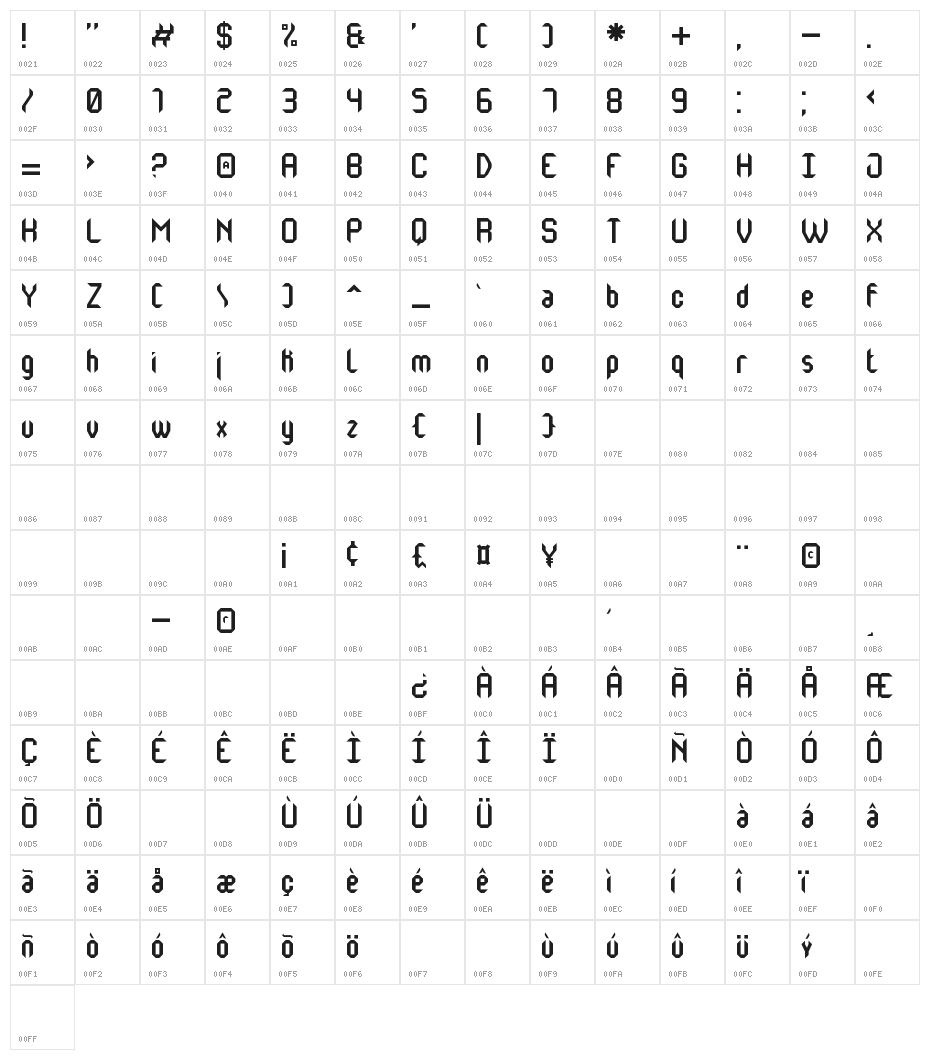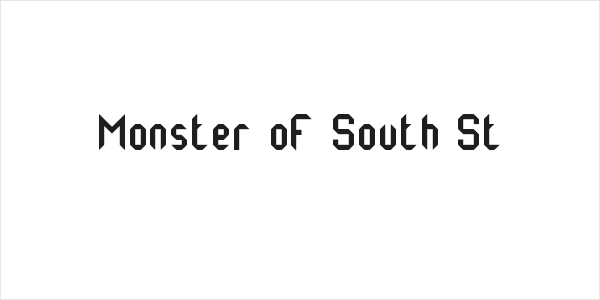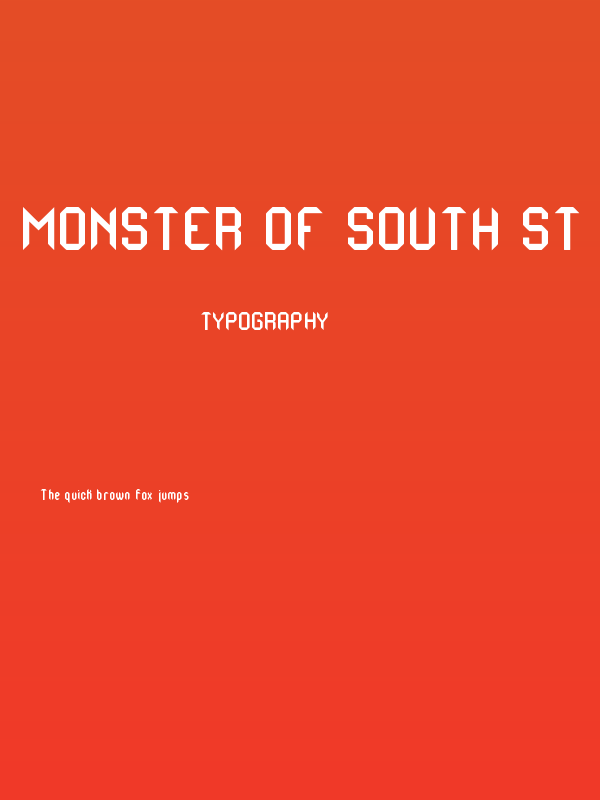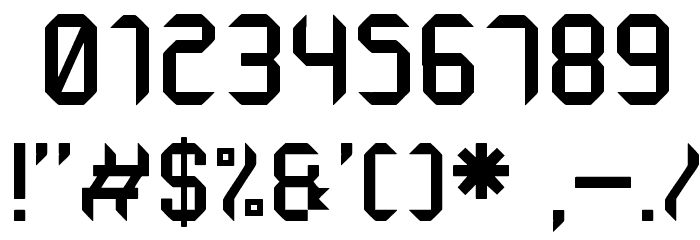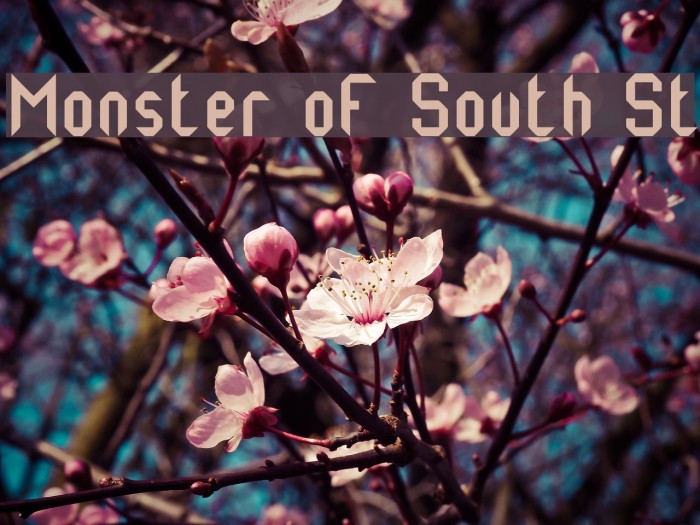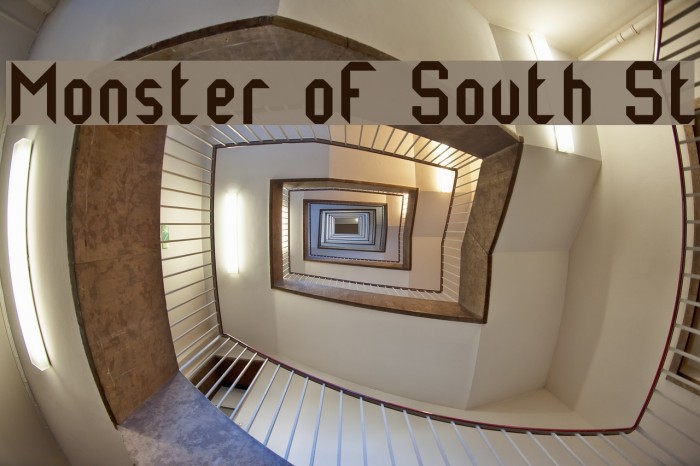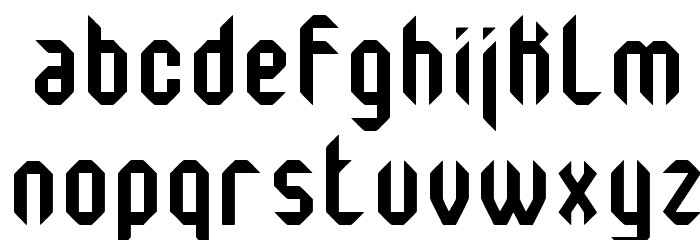
Monster oF South St Font
Monster oF South St Description
This font features a bold and angular design, characterized by sharp edges and geometric shapes. The uppercase and lowercase letters maintain a consistent style, with a distinct, modern appearance that suggests a futuristic or industrial theme. The numbers and special characters follow the same angular motif, ensuring uniformity across all glyphs. The font's unique style makes it stand out, offering a striking visual impact that is both eye-catching and memorable.
| Proposed Projects | Ideal for sci-fi themed projects, video game titles, posters, and branding that requires a modern and edgy look. |